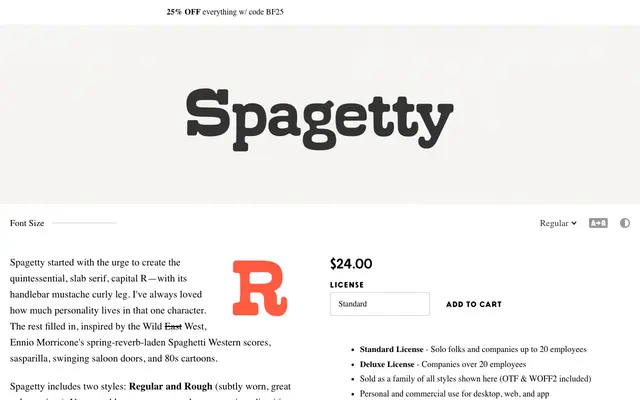
Spagetty
A Spaghetti Western-themed display slab built around a curly-legged capital R, available in Regular and subtly worn Rough styles.
Designed around the personality of a single letterform, the capital R with its handlebar-curl leg, and expanded outward from there. The aesthetic draws on Spaghetti Western cinema, Ennio Morricone scores and 1980s cartoons, giving it a knowingly retro, saloon-door character. Two styles are included: Regular and Rough, the latter textured for use at large sizes, alongside diacritics, alternate glyphs and discretionary ligatures for common words.
A display-weight slab serif designed around a single expressive capital R, with Western-themed ornamentation and a Rough variant; firmly display in intent and character, not suited to running text.